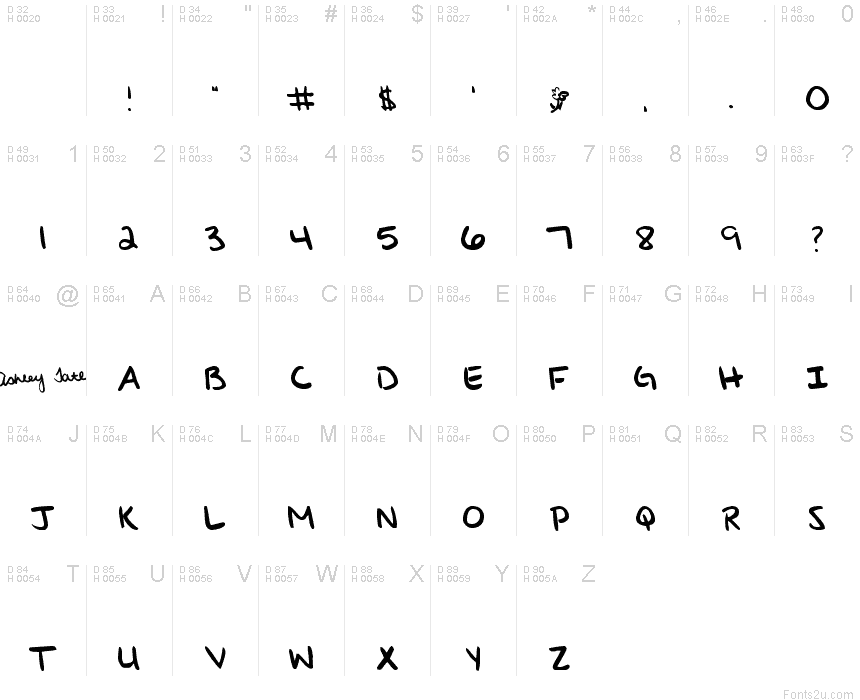
Ashley's Writing
Ashley's Writing font by Rev. Josh Wilhelm is a free brush handwriting typeface that turns casual notes into bold, readable headlines. The letters look like they’ve been drawn with a thick marker—rounded, a little bouncy, and full of energy—yet the spacing stays clean so words don’t collapse into a messy scrawl. It gives you that friendly, handwritten feel without sacrificing clarity when used at larger sizes.
Using Ashley's Writing, this free font shines on kids’ posters, classroom printables, craft labels, YouTube thumbnails, and social media graphics that need a playful human touch. Its chunky strokes also work beautifully on stickers, greeting cards, and lighthearted logos. For a simple pairing, combine Ashley's Writing for headings with a clean sans serif for body text to keep layouts fun but easy to read.